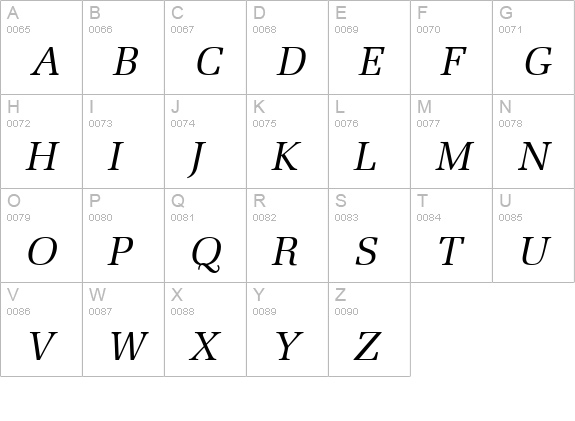
Protocol SSi Italic Font Details
Protocol SSi Italic is a distinctive, italic variant in the Protocol typeface family \xE2\x80\x94 well suited to design and typography projects.
Protocol SSi Italic is a sleek and modern font that exudes sophistication and elegance. With its unique italicized style, this font is perfect for adding a touch of sophistication to any design project. The flowing curves and sharp angles of Protocol SSi Italic create a dynamic and eye-catching text that is sure to captivate your audience. What makes Protocol SSi Italic even better is that it is available for free download at FontsMarket.com. That's right, you can easily enhance your designs with this stunning font without having to spend a dime. Whether you're working on a professional project or a personal creation, Protocol SSi Italic is the perfect choice for adding a touch of flair and style. Download it now and elevate your designs to the next level!